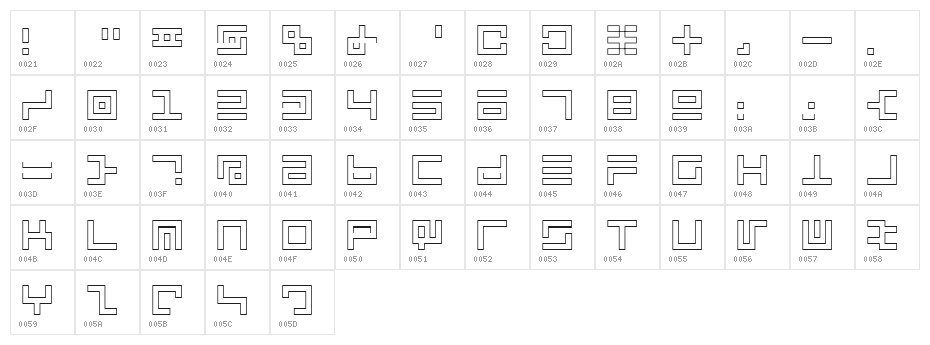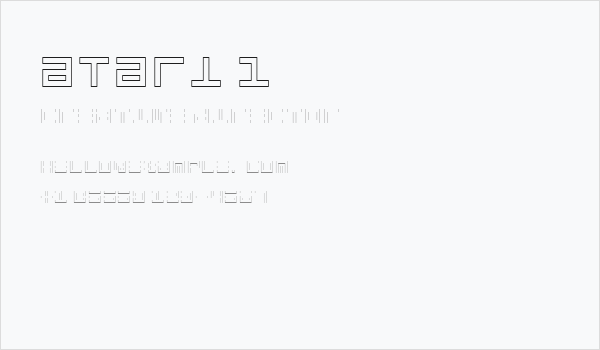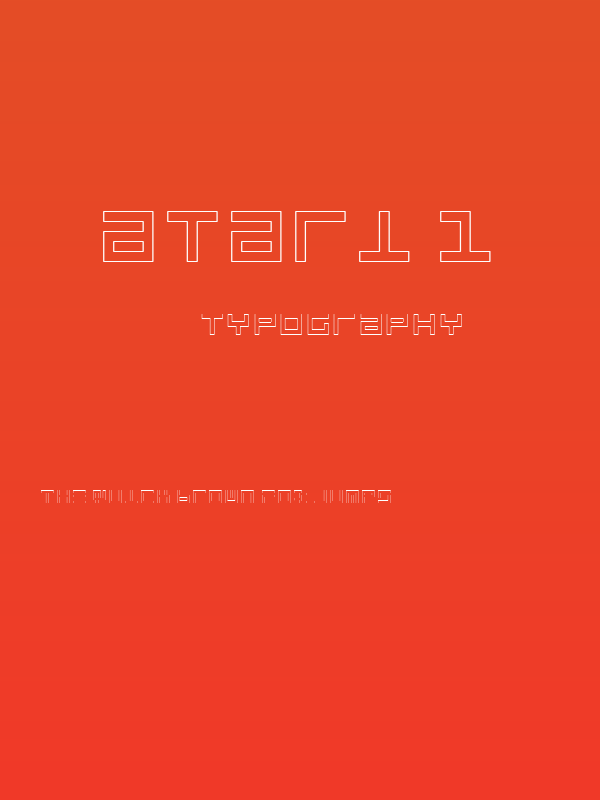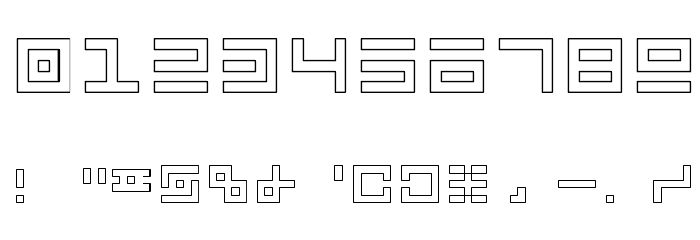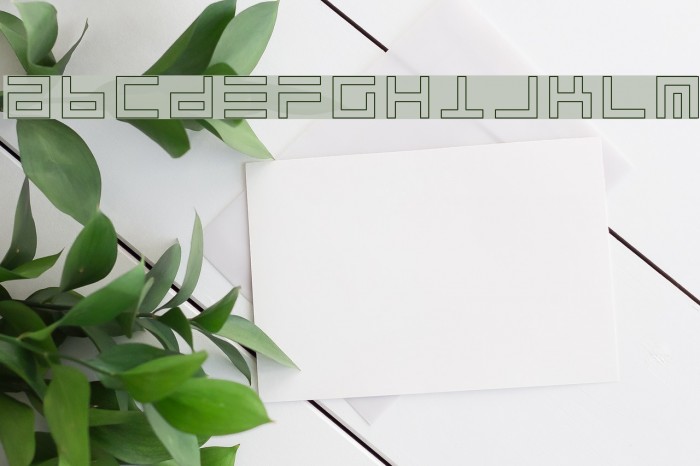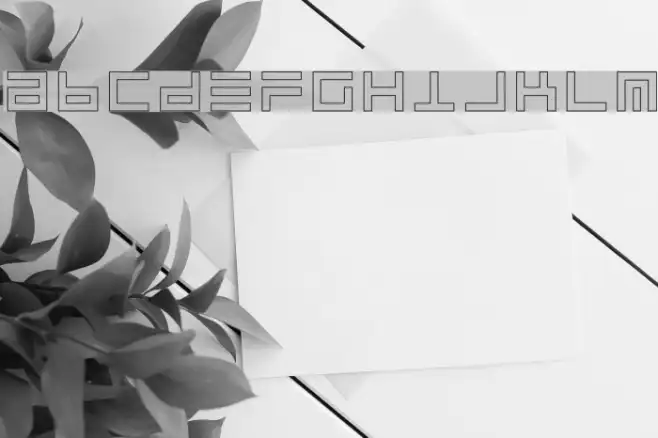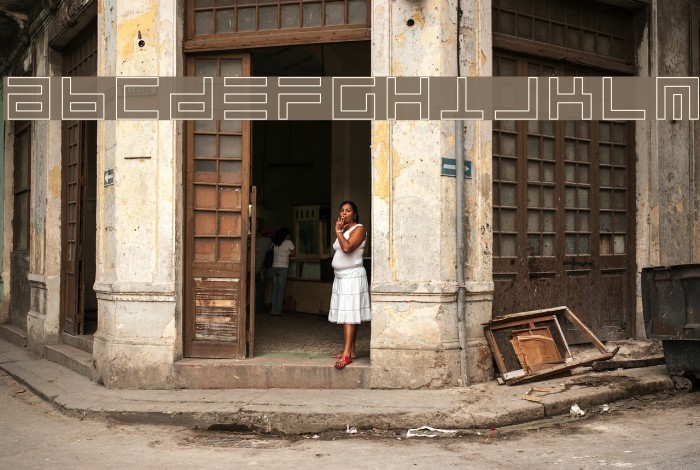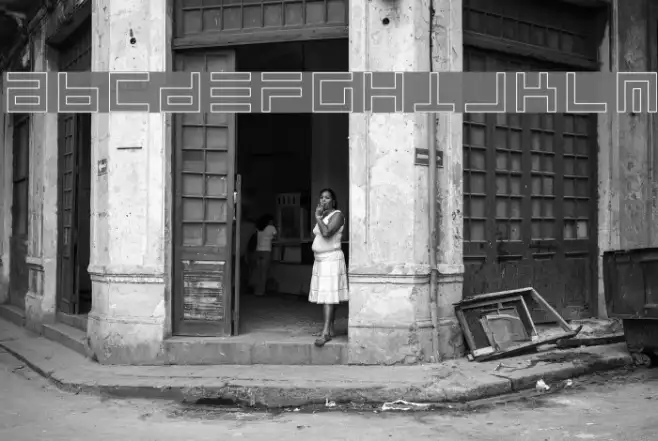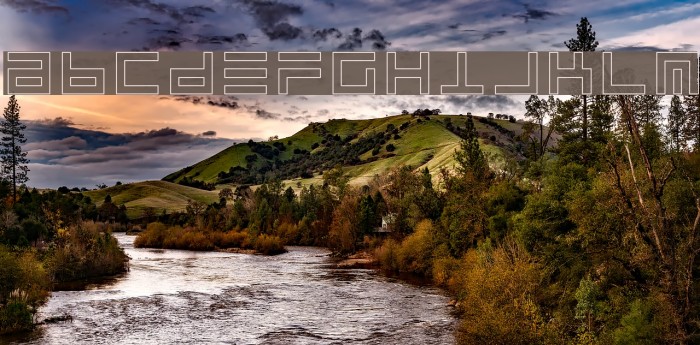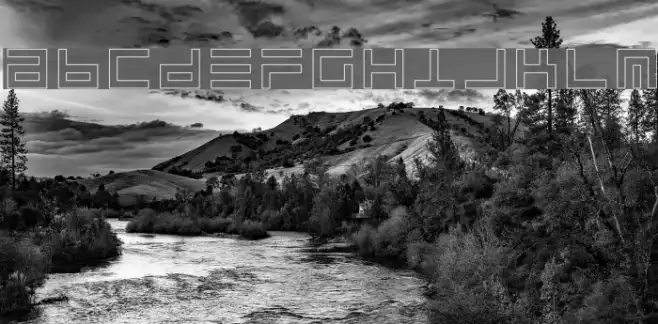
Atari 1 Font
Atari 1 Description
This font features a geometric, block-like design with a futuristic and digital aesthetic. Each character is constructed with straight lines and right angles, creating a sense of uniformity and precision. The uppercase and lowercase letters share a similar structure, enhancing the font's cohesive look. Numbers and special characters follow the same design principles, maintaining consistency throughout. The font's outline style gives it a unique, open appearance, making it stand out in digital and retro-themed projects.
| Use Case | Logos, Headlines, Posters |
| Proposed Projects | Ideal for video game titles, tech-themed posters, digital art, and retro-futuristic designs. |